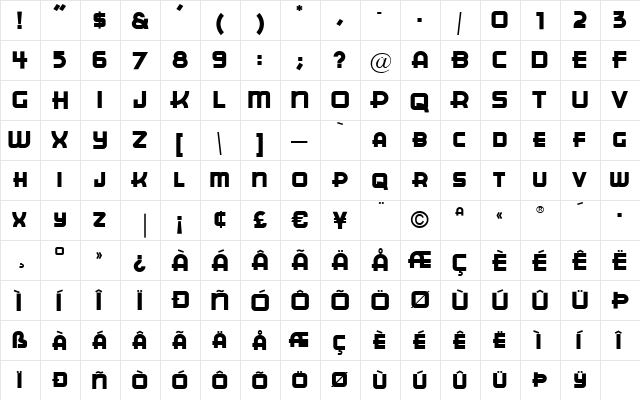
CuppaJoe Medium
| Foundry | Nick Curtis |
Design Context for CuppaJoe Typeface
CuppaJoe takes a measured approach to typography — its balanced proportions and neutral character make it a reliable workhorse for both digital and print work.